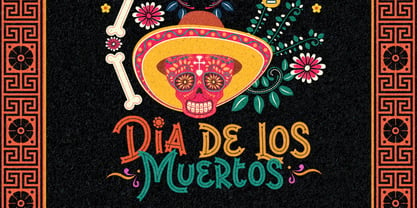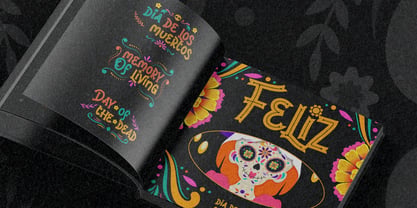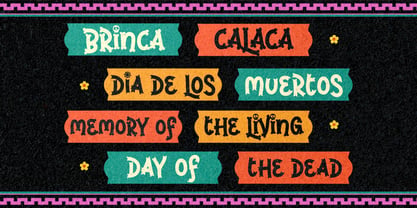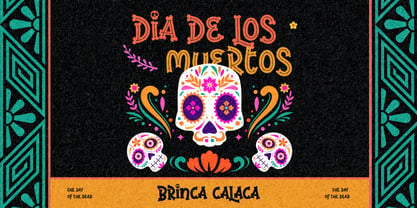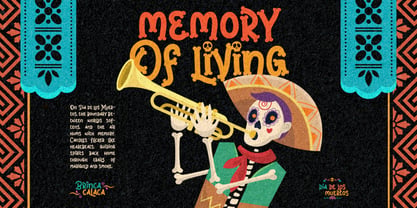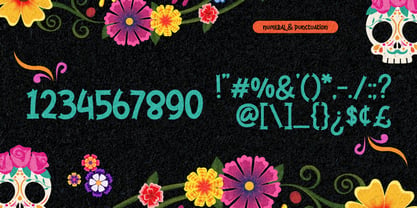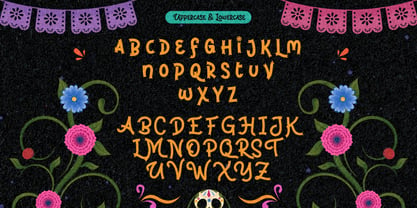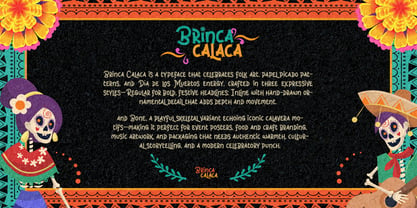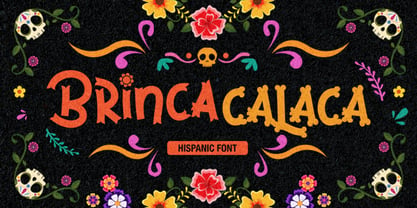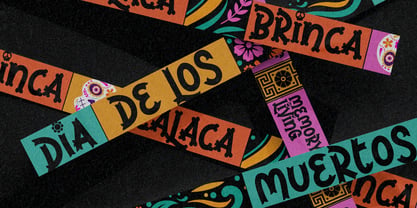
Brinca Calaca
The Brinca Calaca Font Family was designed by Virgiawan Listanto and published by Inviline. Brinca Calaca contains 3 styles and family package options. More about this family
Brincalaca – Hispanic Folk Display Font is a vibrant typeface that draws inspiration from Mexican folk art, papel picado patterns, and Día de los Muertos celebrations. This font infuses joyful color and a handcrafted character into every letter. What You Get: Regular, Inline, Bone, and Bone Inline styles, featuring complete uppercase and lowercase characters, numerals, punctuation, symbols, and multilingual support. It is the perfect font for festival posters, cultural events, food and craft branding, packaging, children’s books, music artwork, party invitations, and any design that seeks to embody vibrant tradition, playful energy, and an authentic celebratory spirit.